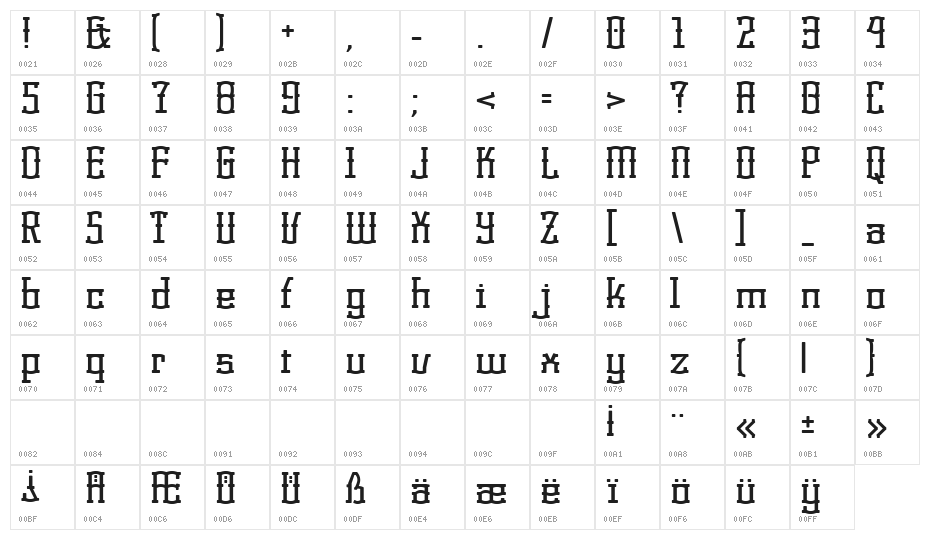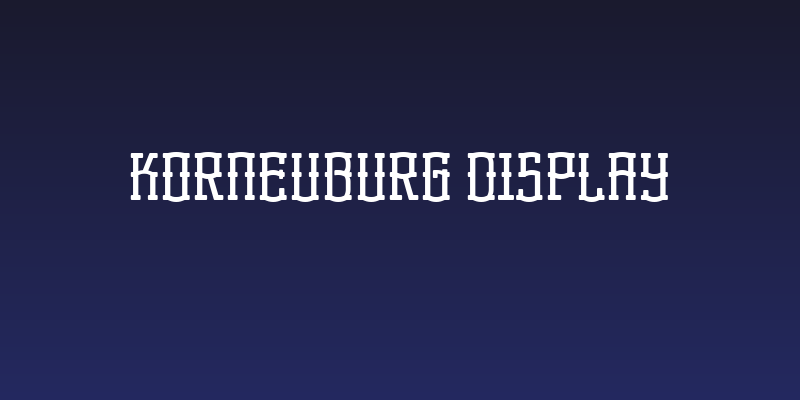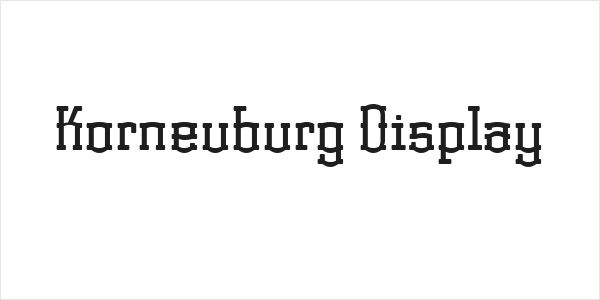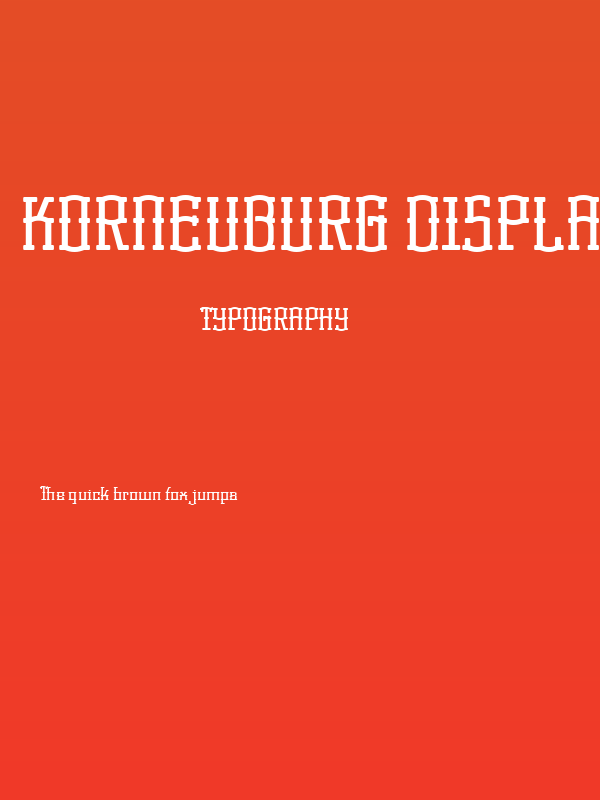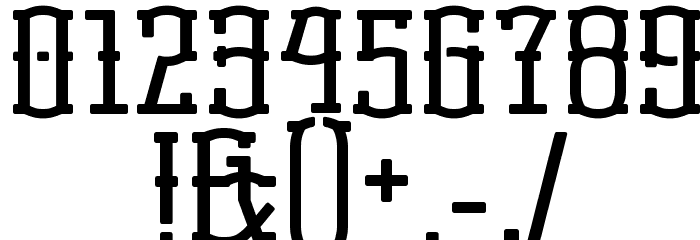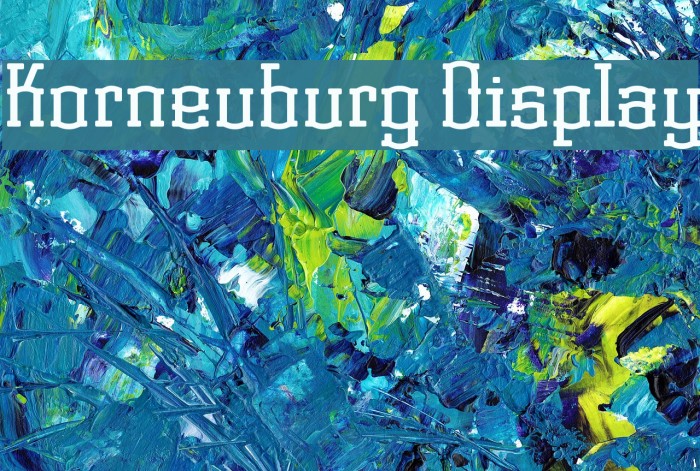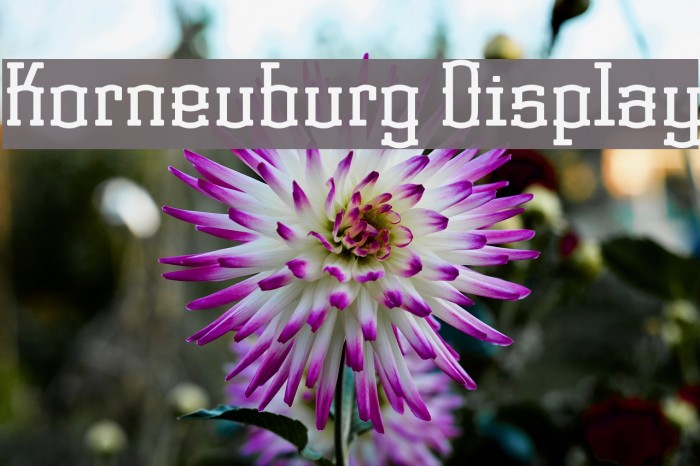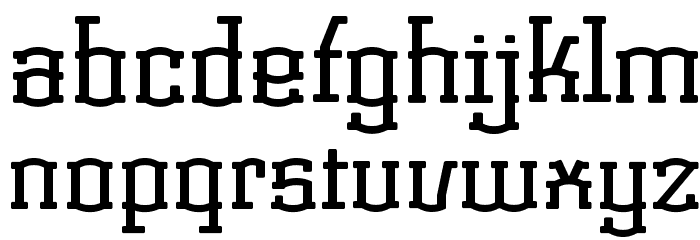
Korneuburg Display Font
Korneuburg Display Description
This font features a bold, geometric design with a strong presence. The characters are constructed with a consistent stroke width, giving it a uniform and structured appearance. The uppercase letters are tall and narrow, while the lowercase letters maintain a similar width, creating a cohesive look. The numbers are distinct and easily readable, with a similar style to the letters. Special characters are well-integrated, maintaining the font's overall aesthetic. This font's unique style makes it suitable for attention-grabbing headlines and titles.
| Proposed Projects | Ideal for posters, branding, and headlines where a bold statement is needed. |